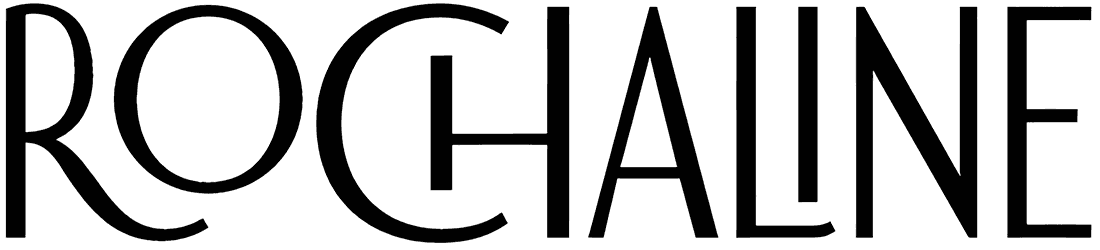
Kegisiko Font
Excellence, luxury, romance, and respect are the first vibes that instantly come to your mind after skimming through a pure artwork such as the Kegisiko, which is artistically conceived with the help of an awesome ligature font.